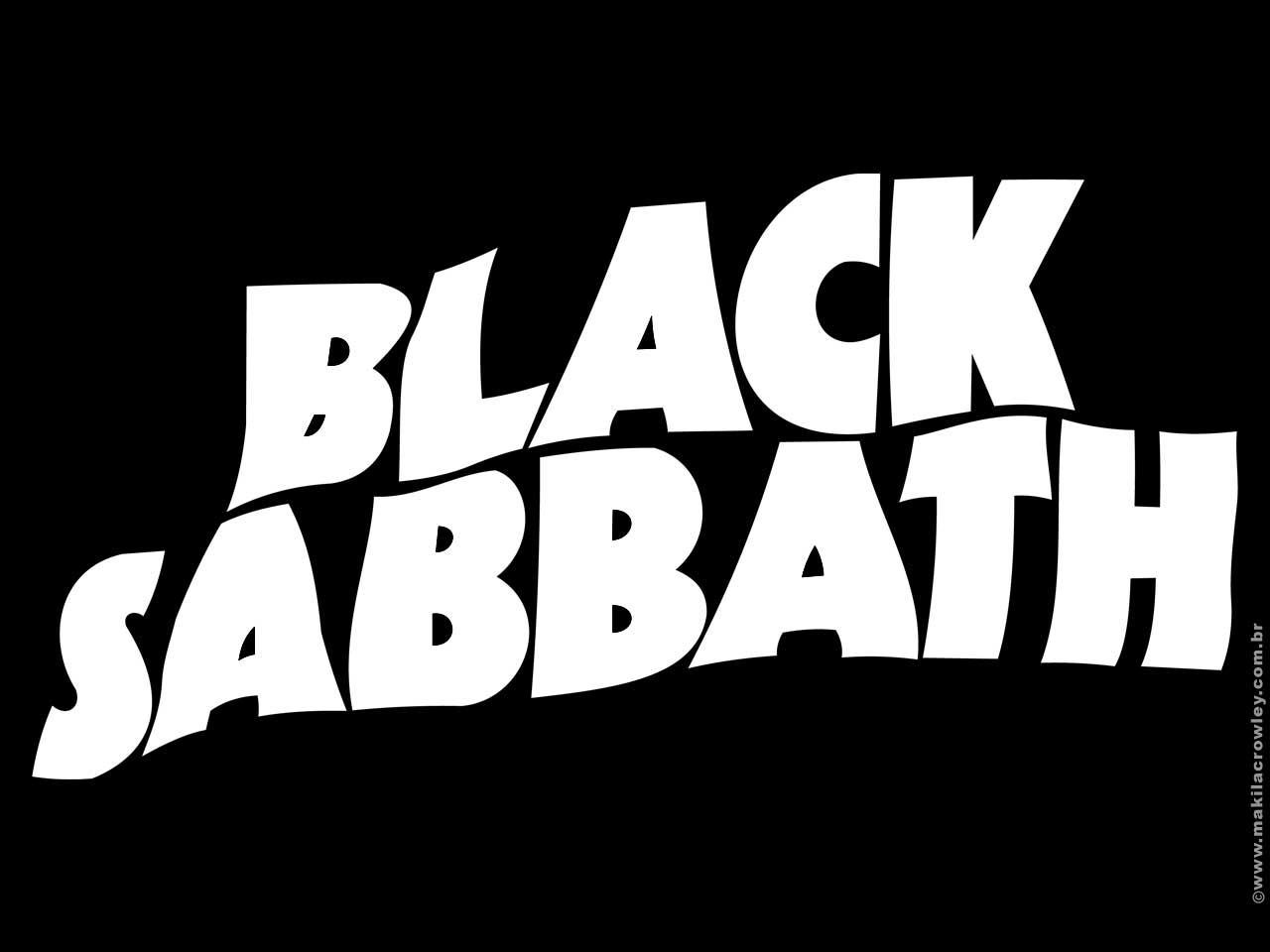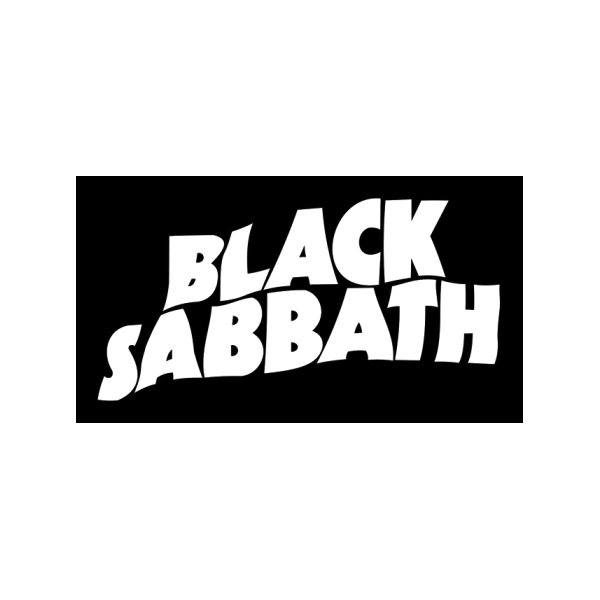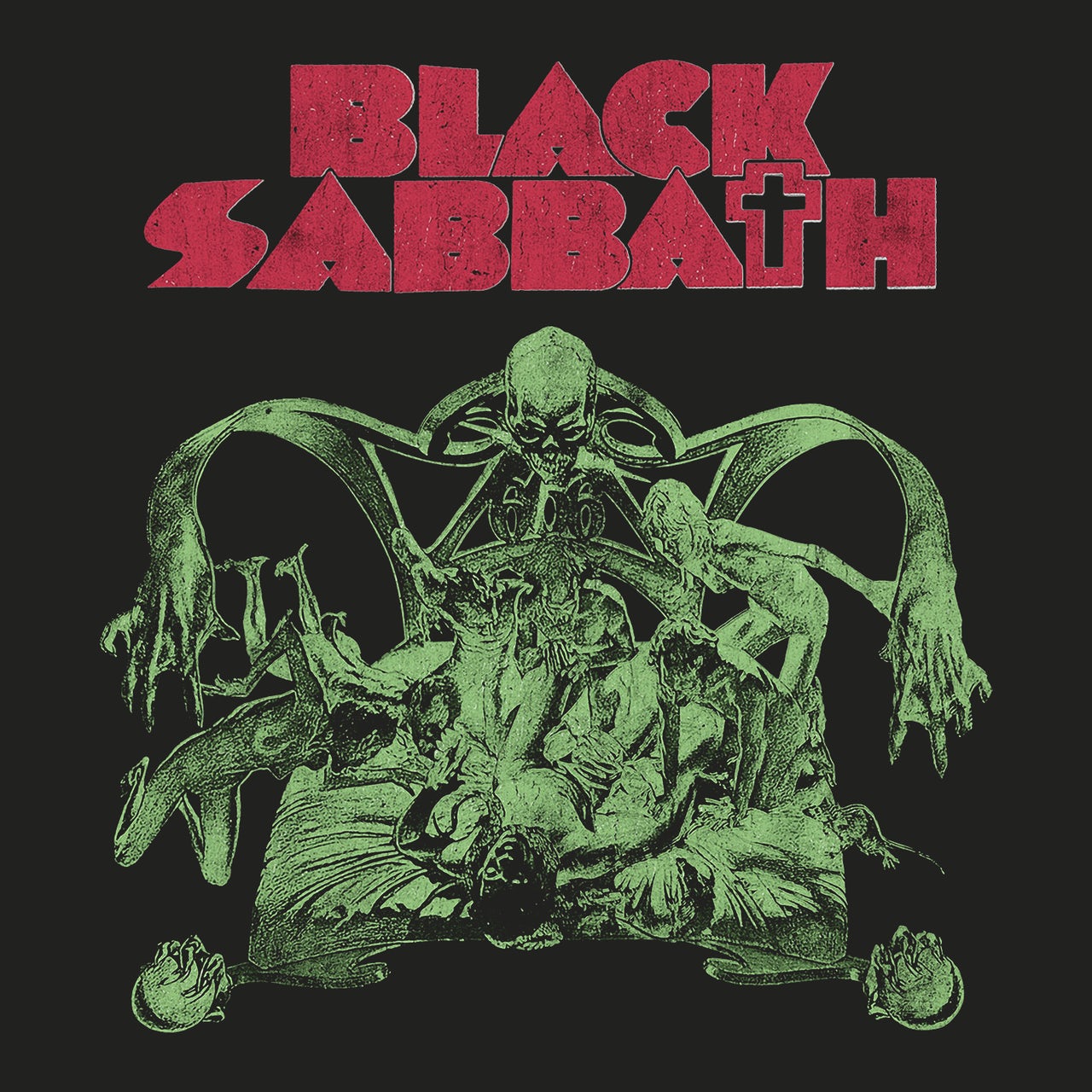
Black Sabbath Font Dafont
I later found out that the font is named maroon sans narrow that was designed by aj dimarucot and commissioned by nowheretogobutup foundation, inc.
Black sabbath font dafont. New from the monotype studio, cotford is a contemporary serif from creative type director, tom foley. Masters of reality submitted fonts download for free download masters of reality submitted fonts for windows and macintosh, browse free masters of reality fonts by letter or search for the font you want! Sabbath paranoid is based on the blocky font used on the title on the sleeve of paranoid, the album of black sabbath that was released in september 1970.
2) that font is great. Black sabbath font is a logo font that totally based on a black sabbath album. The master of reality typeface is definitely not futura.
Masters of reality submitted fonts download for free download masters of reality submitted fonts for windows and macintosh, browse free masters of reality fonts by letter or search for the font you want! It looks more like a custom version of itc kabel ultra. Use these free fonts to make designs for your favorite heavy metal bands, like.
The font turned out to be a photo type named bloop whose provenance is not known to me. If you want to create professional printout, you should consider a commercial font. It looks more like a custom version of itc kabel ultra.
The best compared devils tower height comparison; Volume 4 is one of the best composed records of all time. Dynamic, adaptable, and surprising—cotford is a languid serif that ranges from delicate thins, bending and reaching like flower stems, to bold heavy weights that command the page and screen with confidence and vintage charm.
20+ skyrim aurora standing stones mod; The time is now 05:28. 21+ charlotta phillip original resolution:
The font used for the text on the album cover is very similar to blacksabbath70, which is a digitized recreation based on the manuscript capitals by letraset. The best compared devils tower height comparison; 12 professional paranoid fonts to download.
Download the seven deadly sins diane aesthetic; 27+ genji overwatch desktop background;
367x600 a time and a place the layers of black history presents unique voices in contemporary realism at rjd gallery hamptons art hub. The font turned out to be a photo type named bloop whose provenance is not known to me. The best images of pennywise from the movie it;
Still looking for the nearest example for the album title (hand drawn), there is a 'spinal tap' font but only the lower case 'a' is close. Black sabbath is the debut album by english heavy metal band black sabbath, released in 1970 through vertigo records. It is also hand drawn to my knowledge, but seems based off of gill kayo.